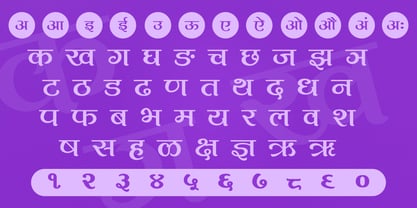
Shree Devanagari 1060
by Modular InfoTech
The Shree Devanagari 1060 Font Family was designed by Modular Infotech and published by Modular InfoTech. Shree Devanagari 1060 contains 4 styles and family package options. More about this family
Shree Devanagari 1060 is a bold and assertive typeface available in two weights – Regular and Black. Designed with strong, dense strokes, it delivers a commanding presence that draws immediate attention. While the Regular weight maintains readability, the Black weight is crafted for maximum emphasis, ensuring high visibility in any layout. This combination makes it versatile for both body text and impactful titles where strength is required. This typeface is perfect for advertisements, banners, magazine headings, outdoor signage, political campaigns, and posters, where bold messaging must stand out. Its Regular weight also supports official forms, reports, and subheadings, offering a balance of clarity and authority. Its Black weight is suitable for broadcast media.
Designers: Modular Infotech
Foundry: Modular InfoTech